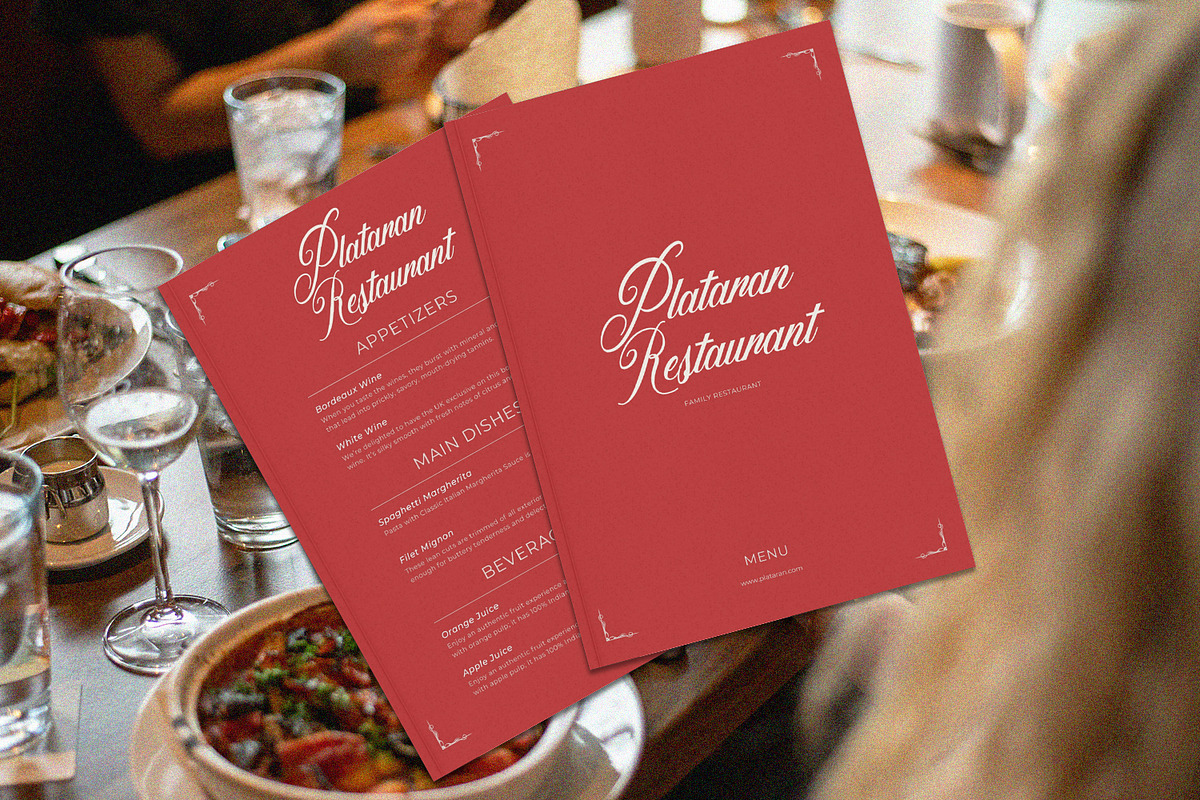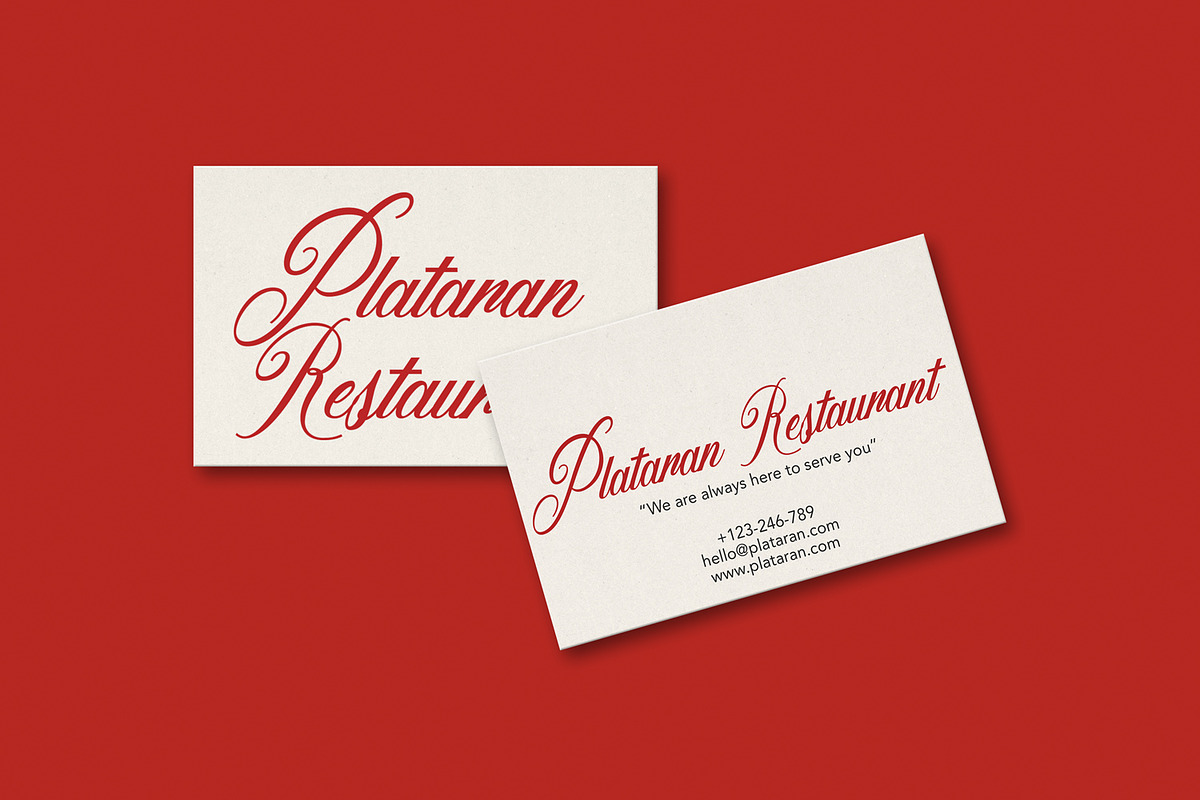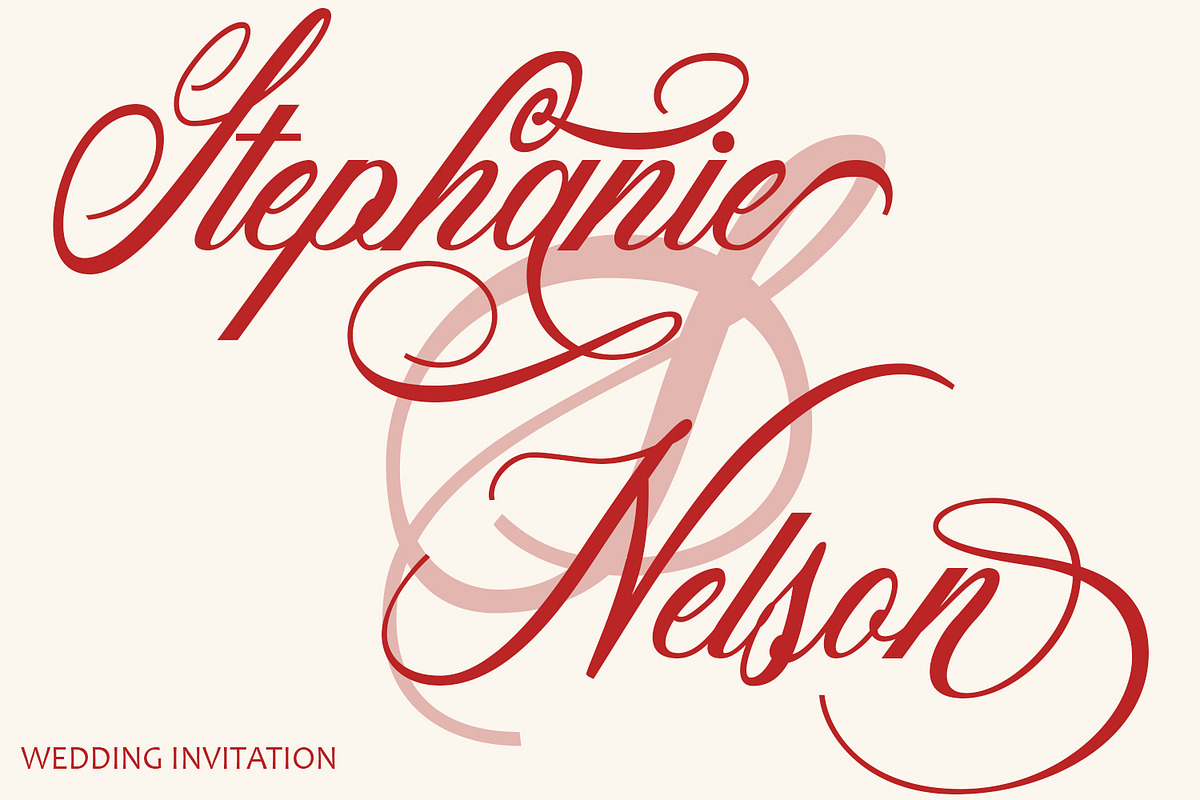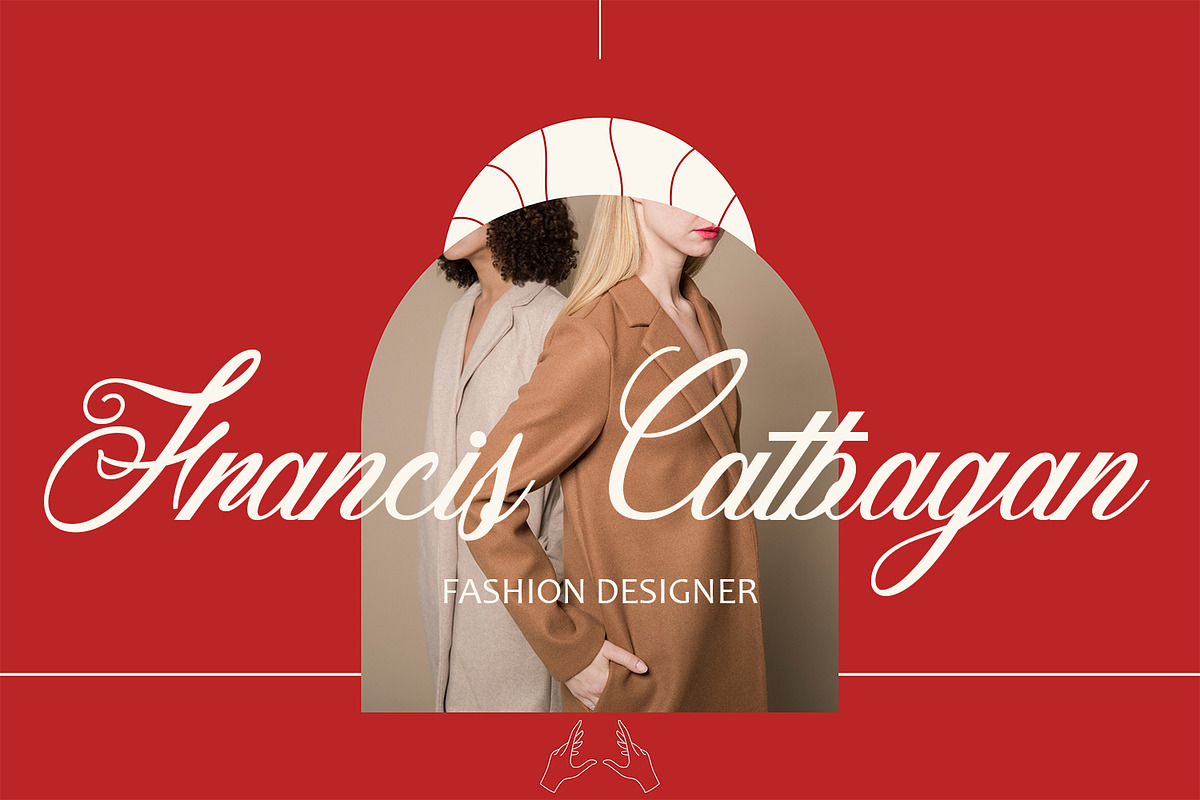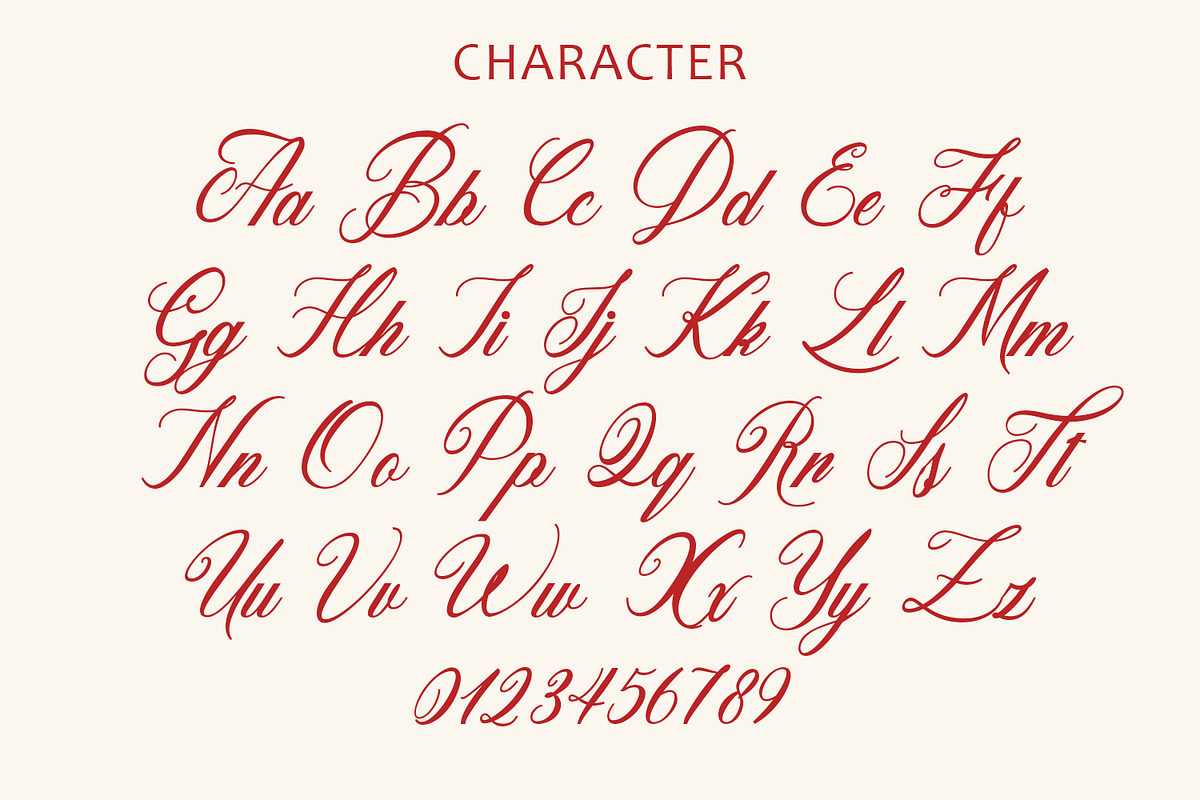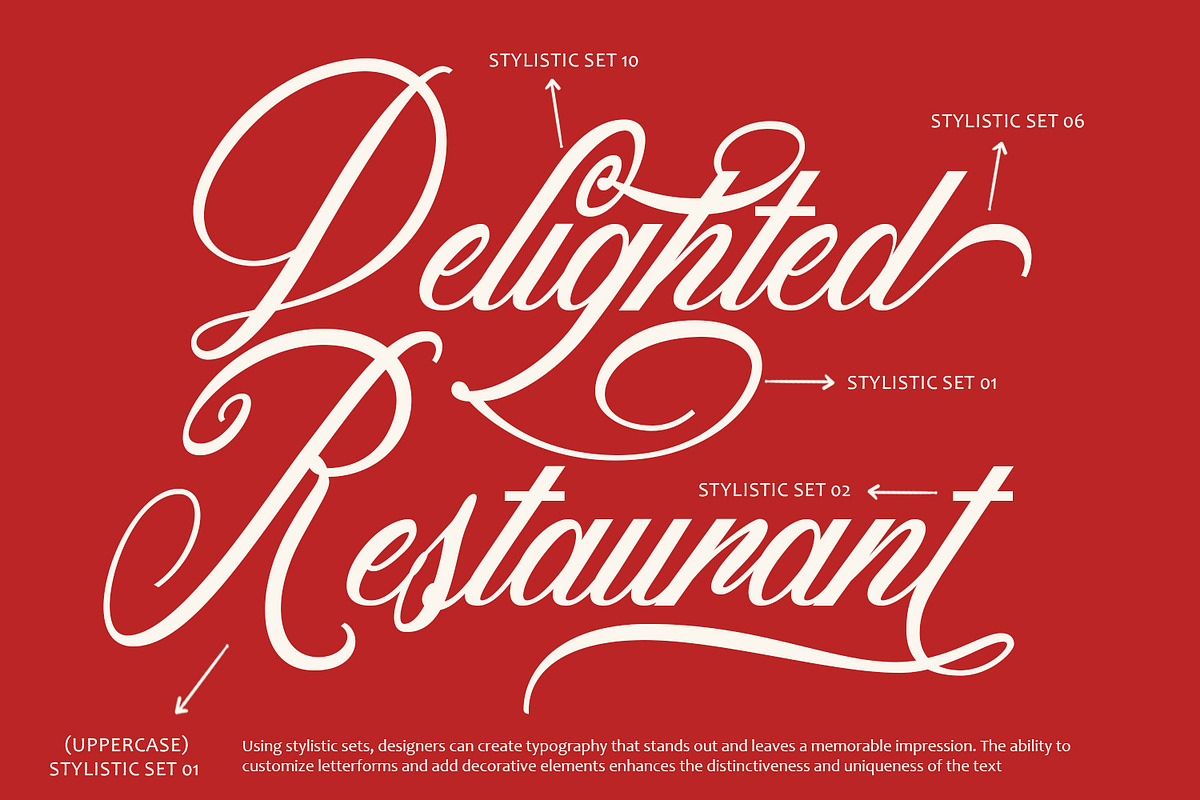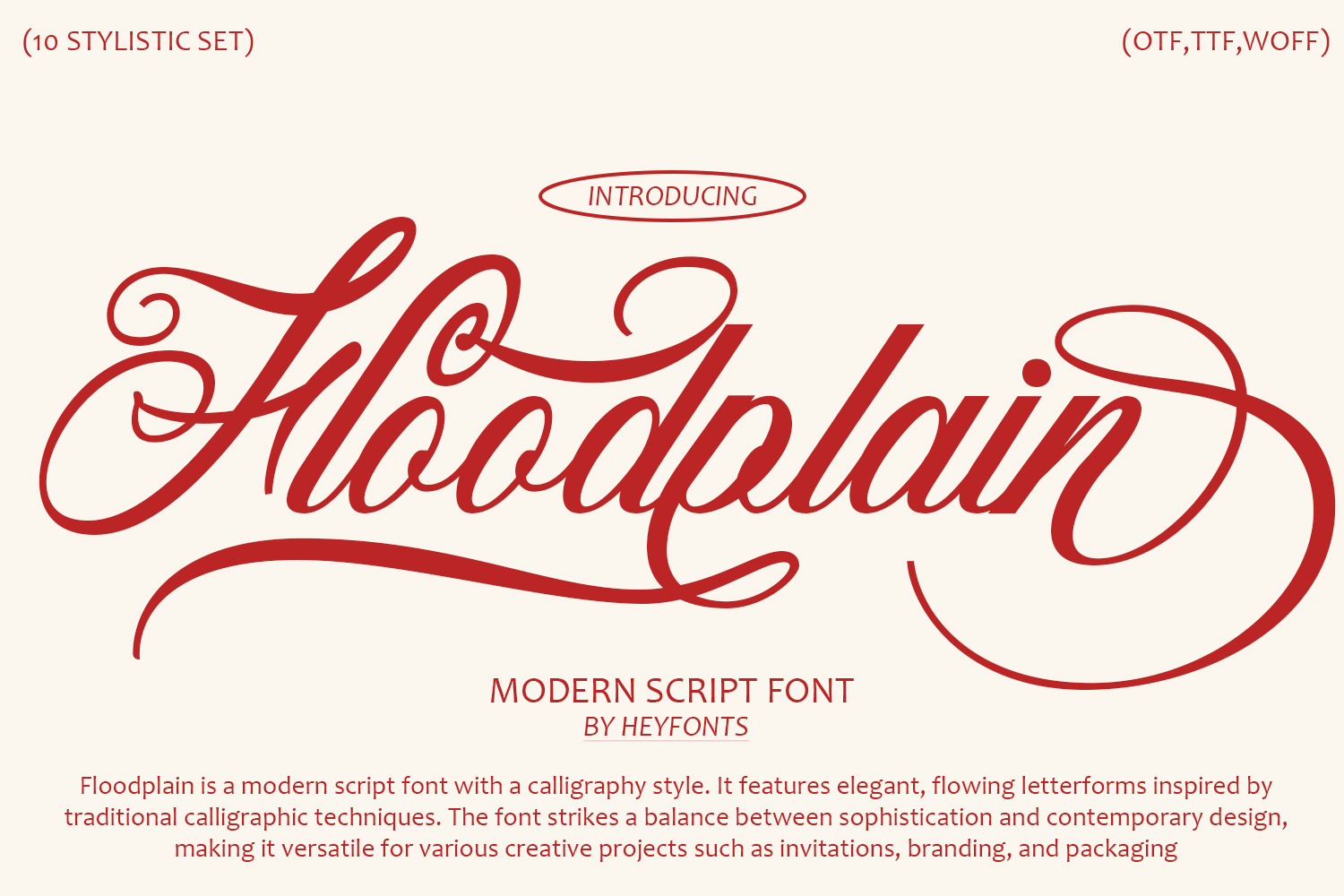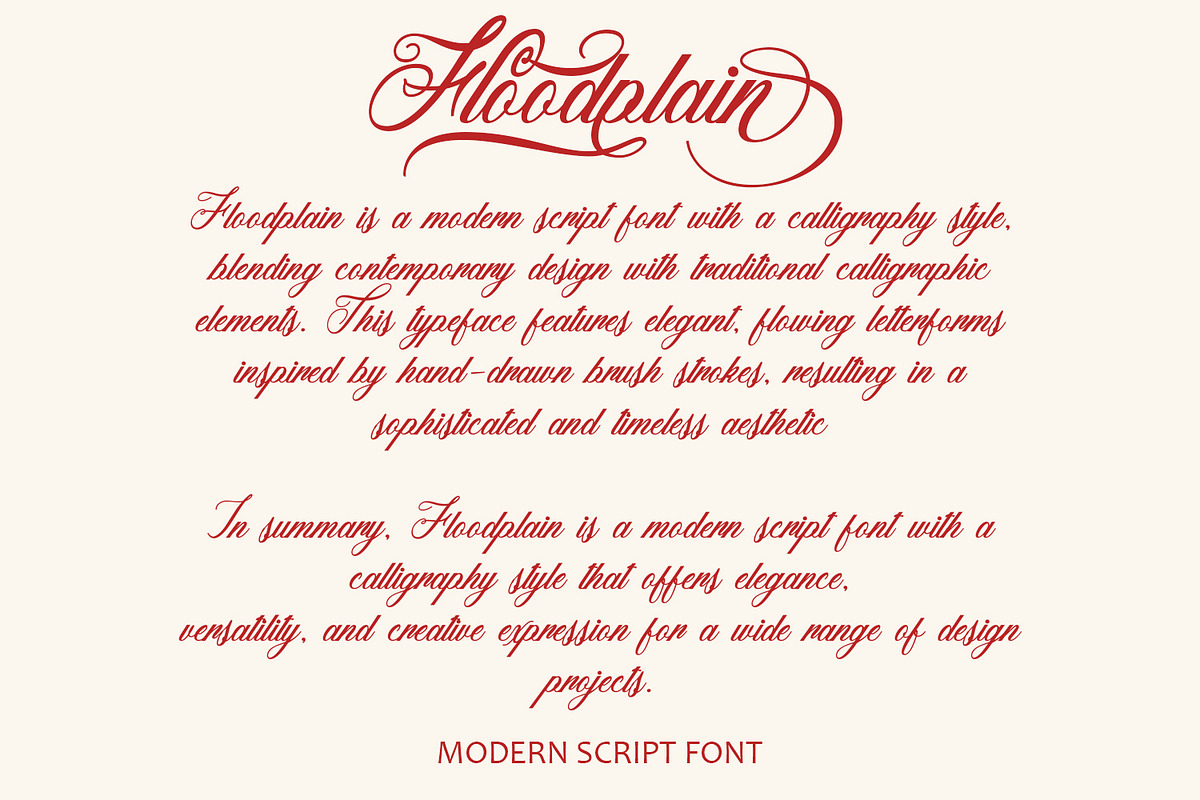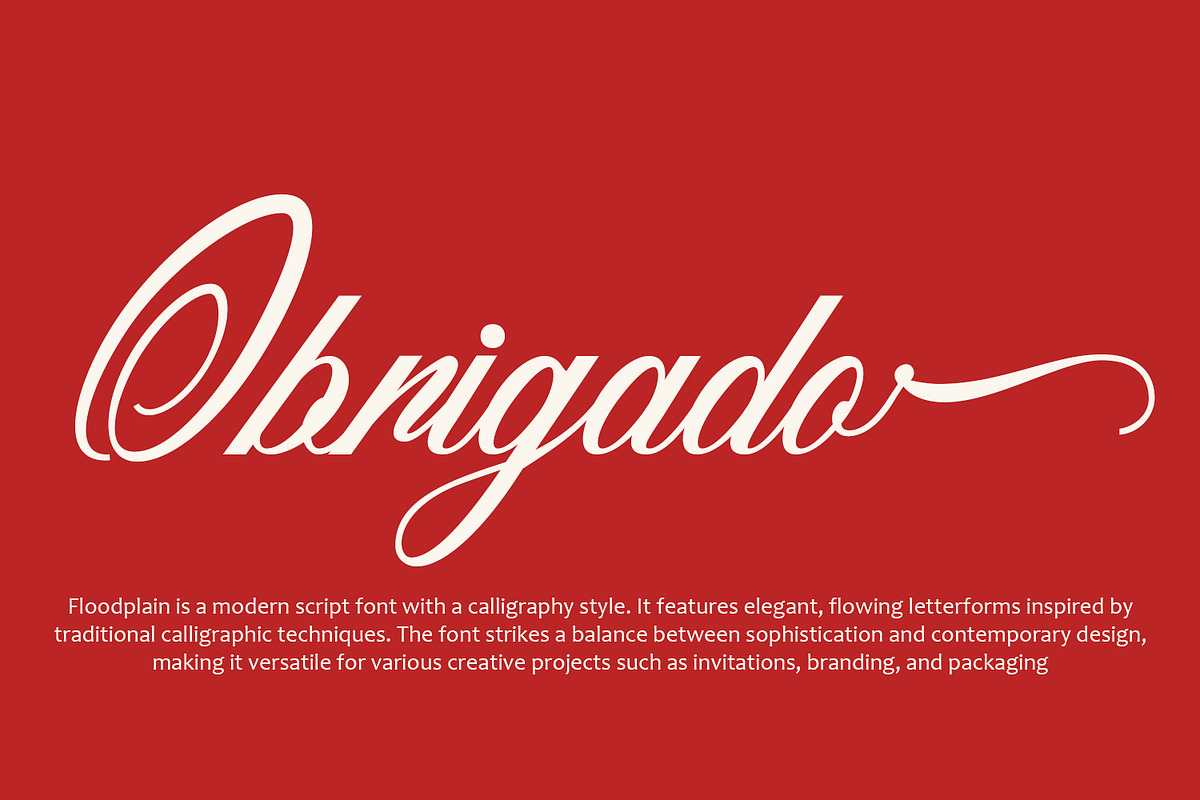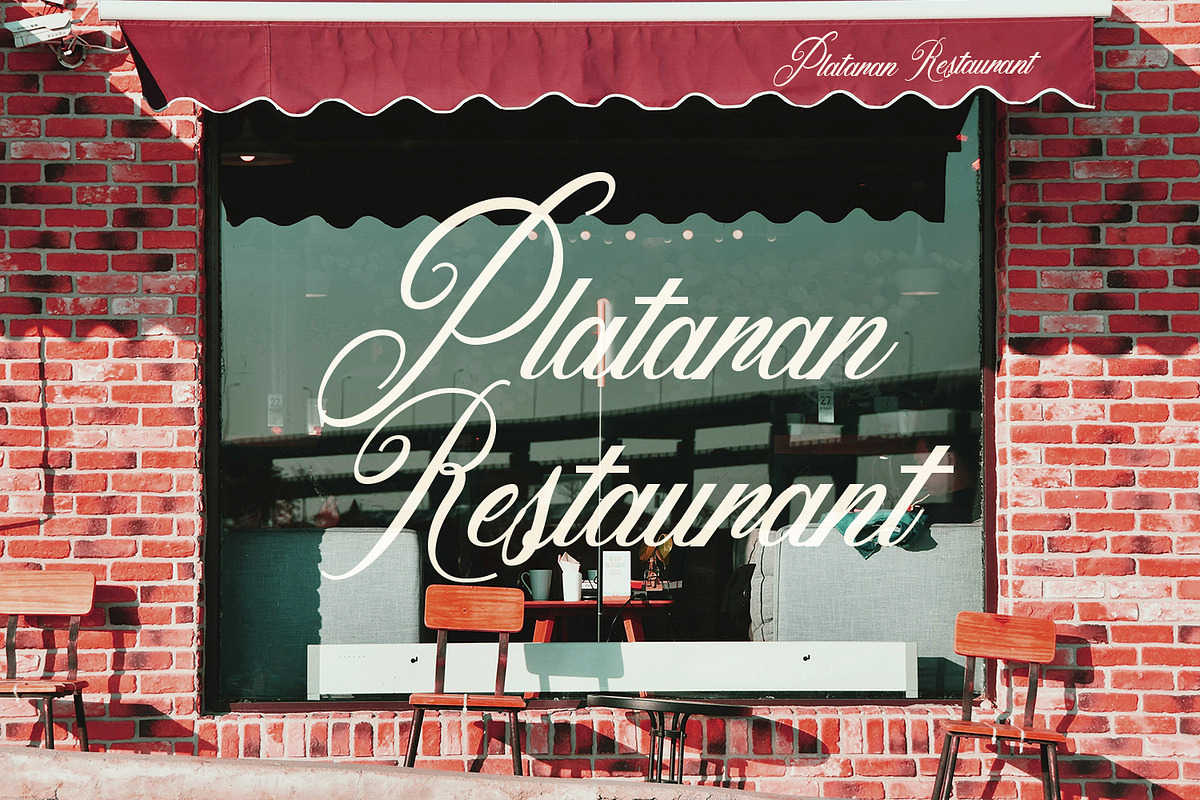
Floodplain - Modern Script Font
Floodplain is a modern script font with a calligraphy style, blending contemporary design with traditional calligraphic elements. This typeface features elegant, flowing letterforms inspired by hand-drawn brush strokes, resulting in a sophisticated and timeless aesthetic. The Floodplain font family offers versatility with its range of weights and styles, making it suitable for various design applications.
-Calligraphic Elegance: Floodplain's letterforms exhibit the graceful curves and fluid strokes characteristic of calligraphy, evoking a sense of elegance and sophistication. -Contemporary Design: While rooted in calligraphic tradition, Floodplain incorporates modern design elements, resulting in a stylish and versatile typeface suitable for both classic and contemporary projects. -Stylistic Alternates: Floodplain may offer stylistic alternates and ligatures, providing designers with additional options for customizing the typography and creating unique compositions. -Multifunctional: Floodplain is well-suited for a wide range of design applications, including branding, packaging, invitations, signage, and more, thanks to its versatile and adaptable design. -Readability and Legibility: Despite its decorative nature, Floodplain maintains readability and legibility, ensuring that the text remains clear and easy to read even at smaller sizes.
In summary, Floodplain is a modern script font with a calligraphy style that offers elegance, versatility, and creative expression for a wide range of design projects. With its timeless appeal and contemporary design elements, Floodplain is a valuable asset for designers seeking to add sophistication and charm to their typographic compositions.